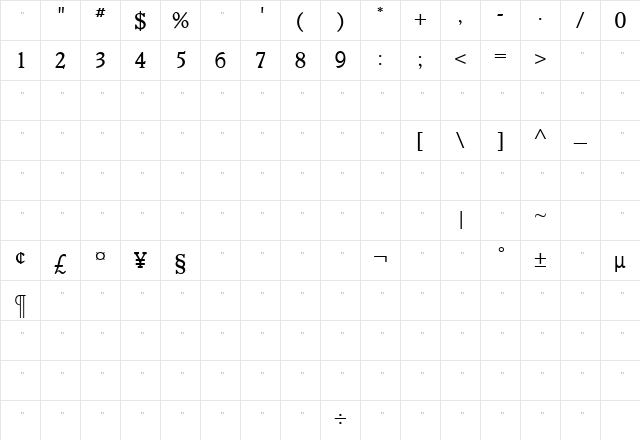
VeroneseBookTab Medium
Design Context for VeroneseBookTab
VeroneseBookTab is a composed and adaptable typeface that performs quietly and consistently across a wide range of design contexts.
Pro Tip: Use VeroneseBookTab in both headline and body roles to test its range before committing to a single application.